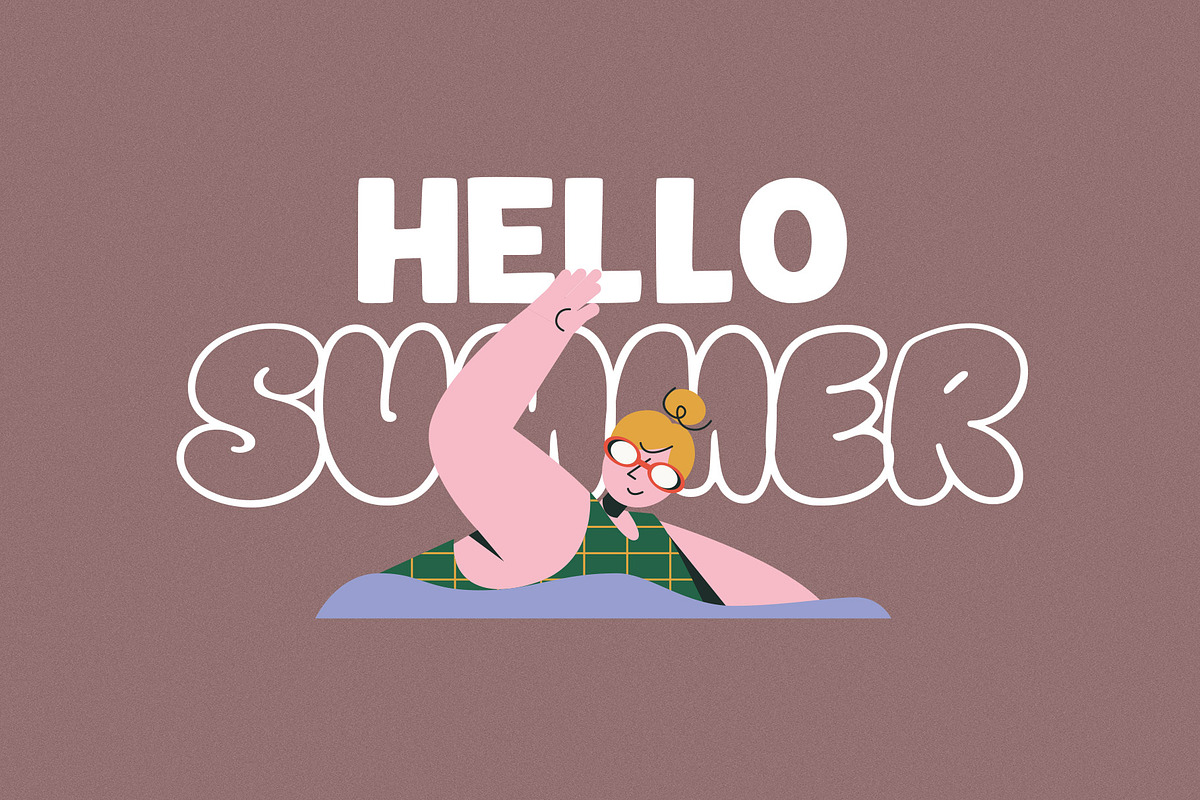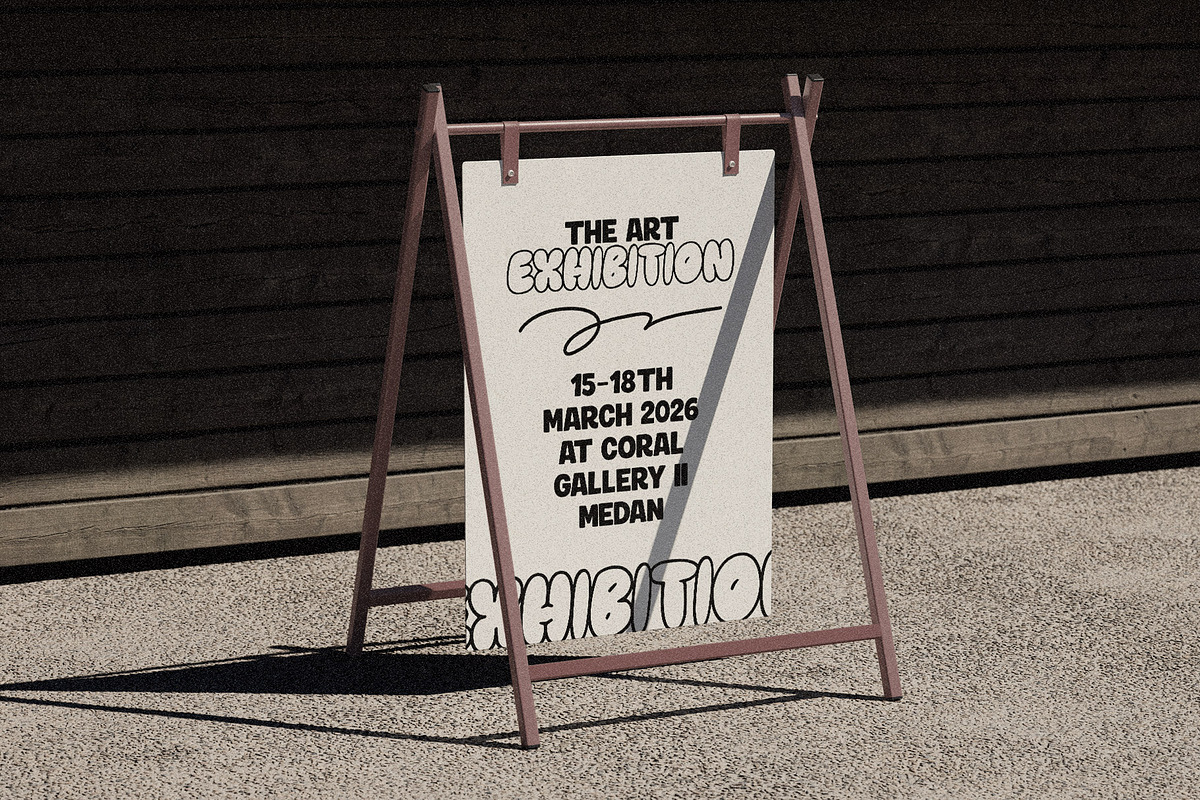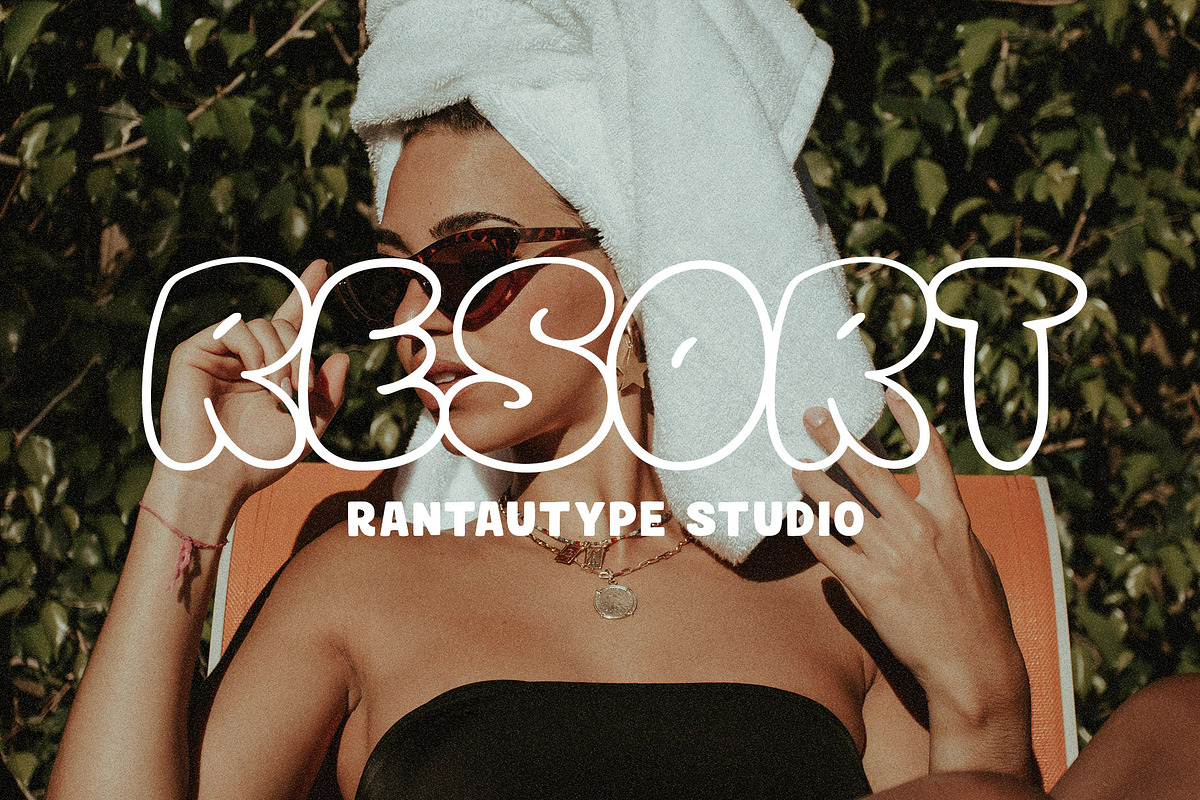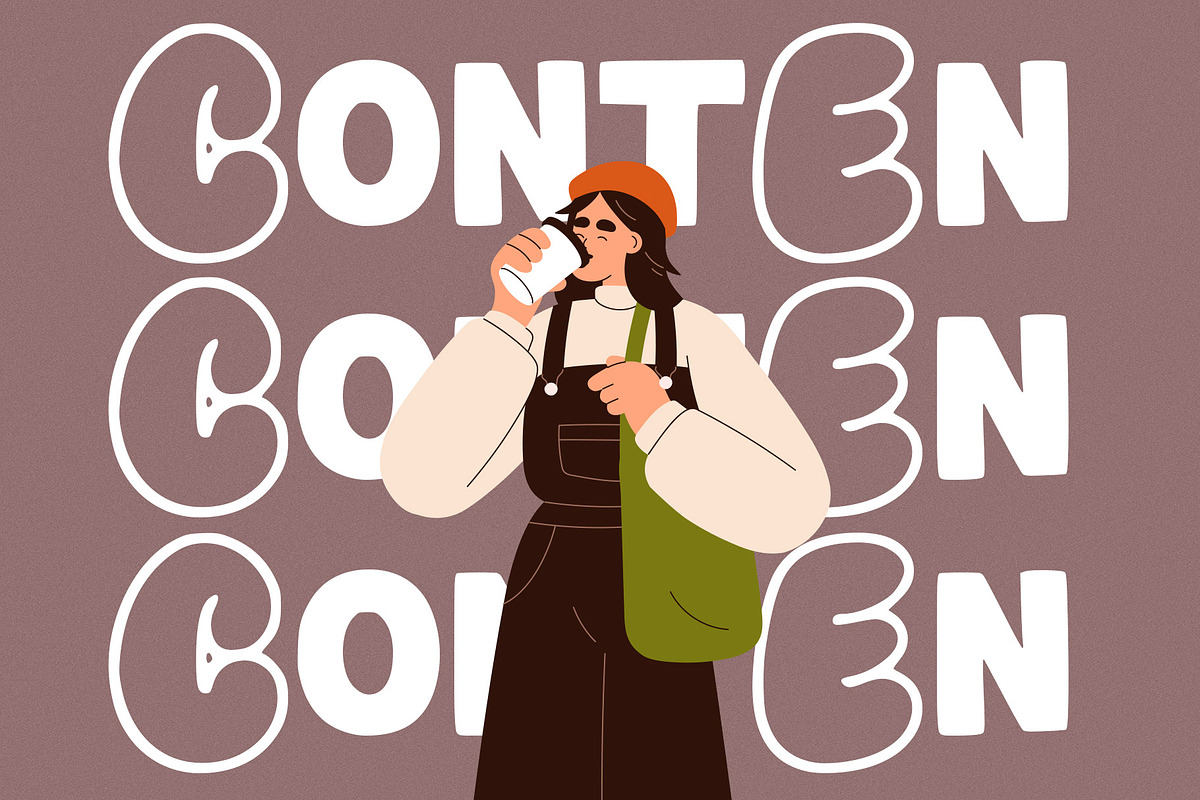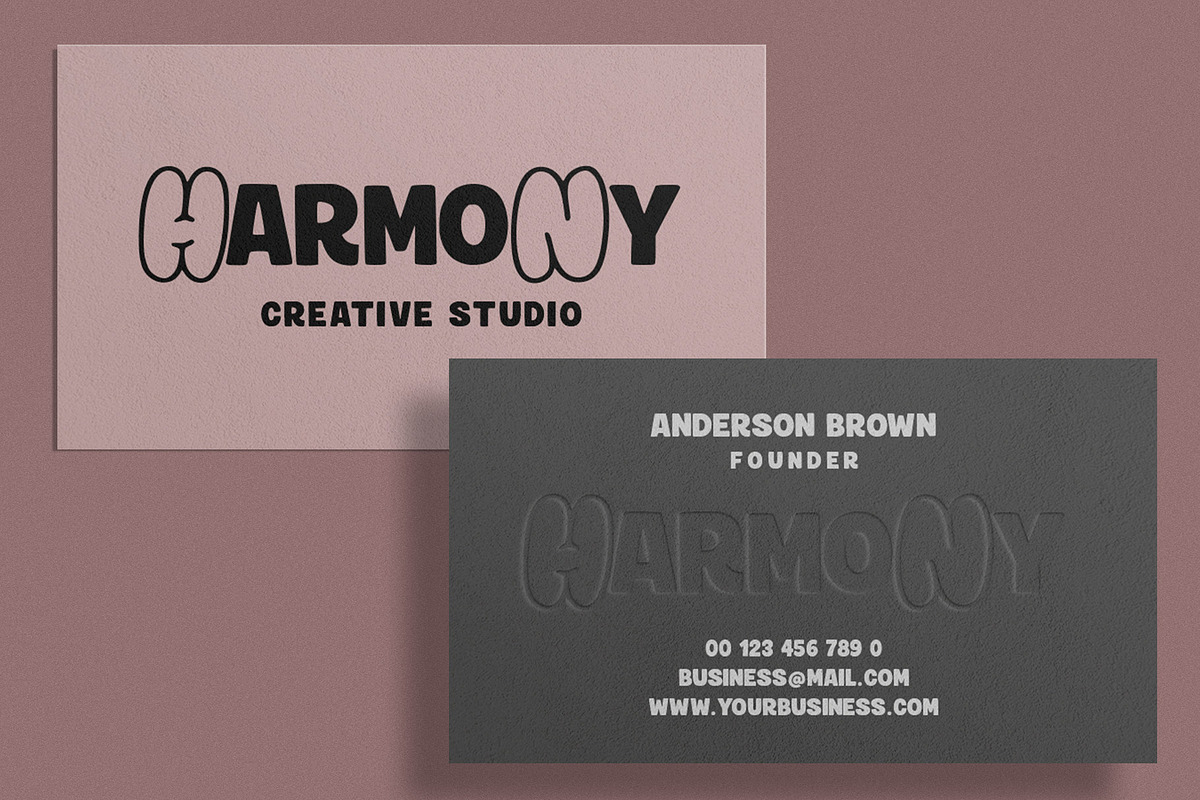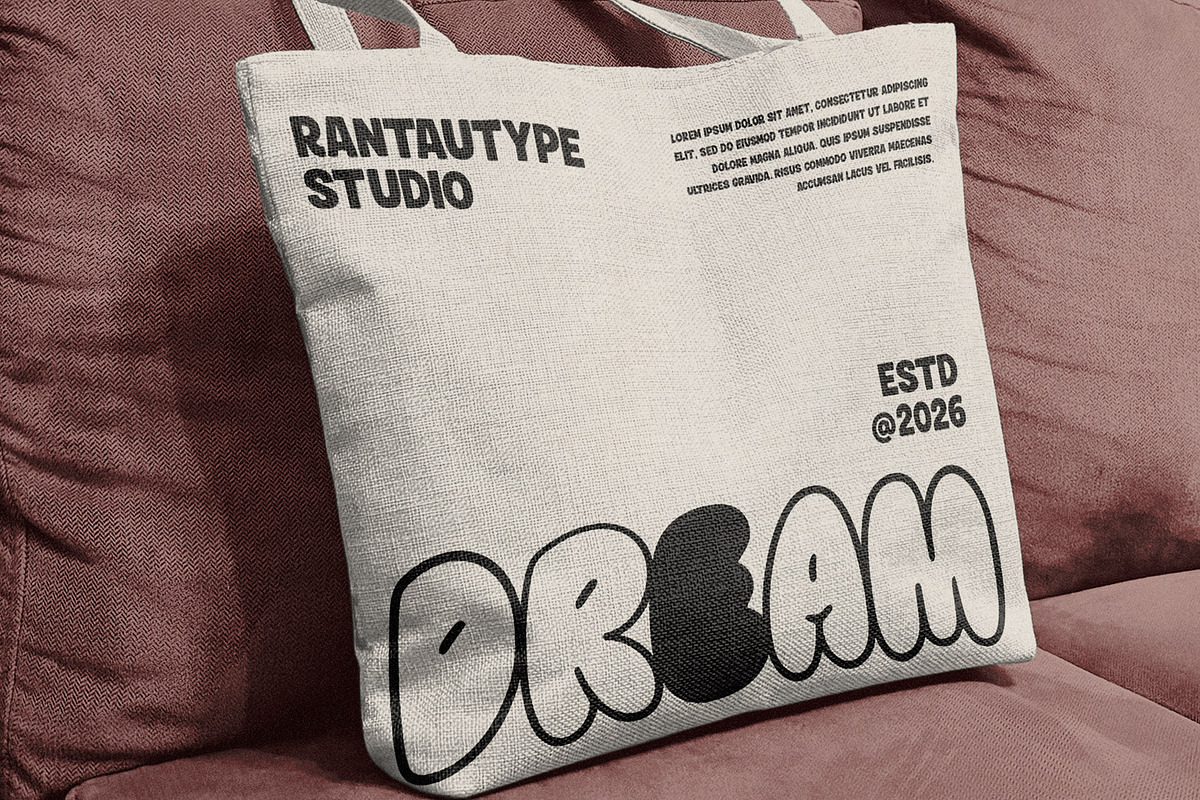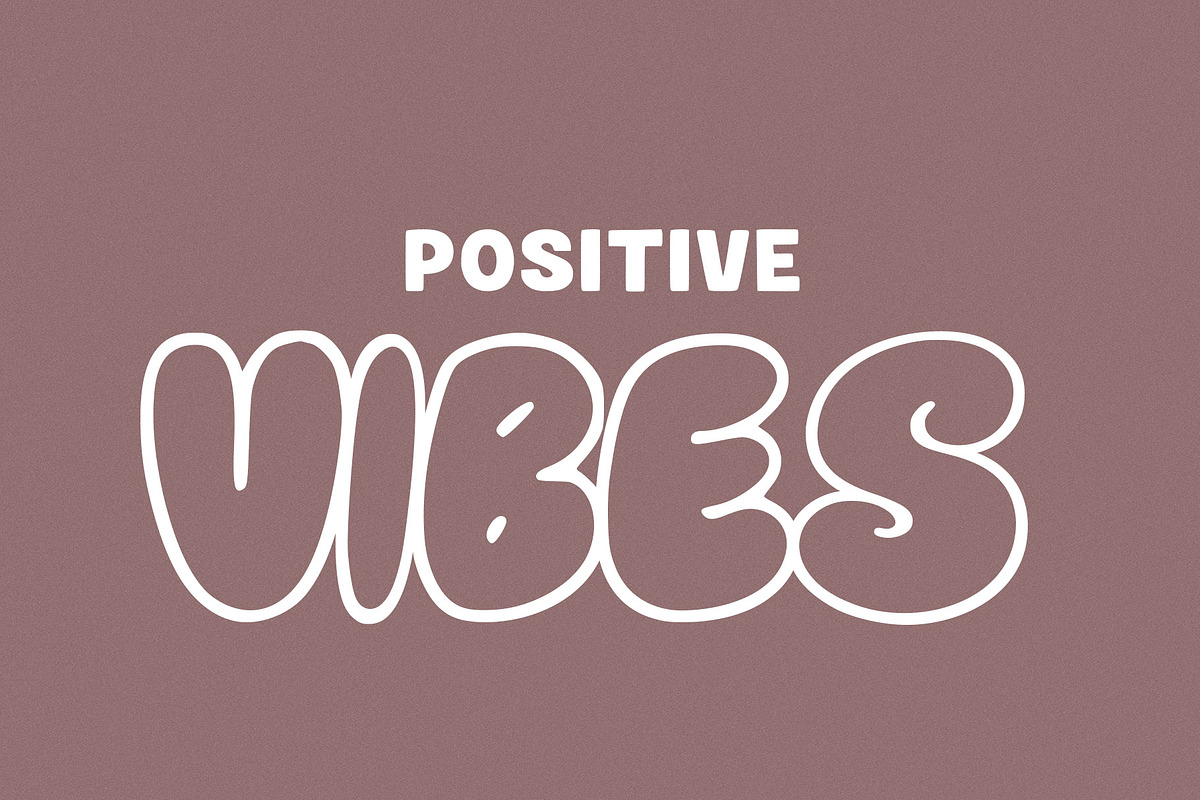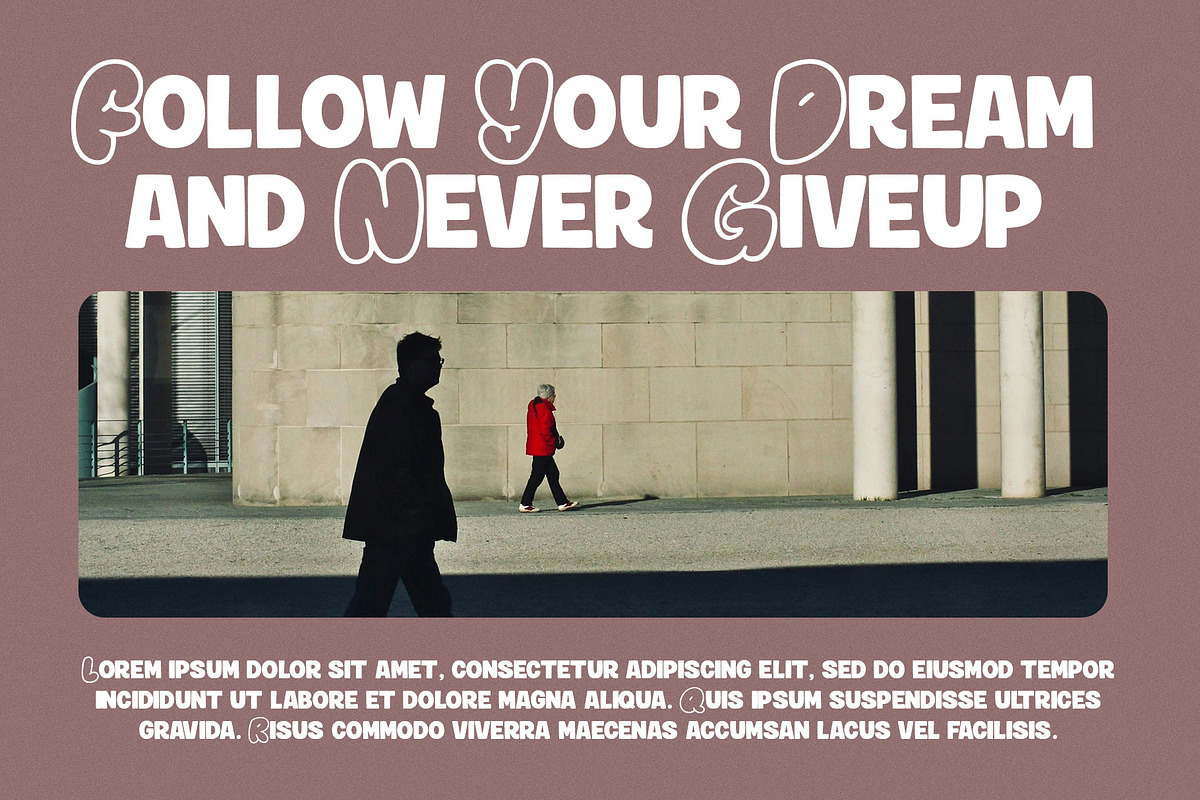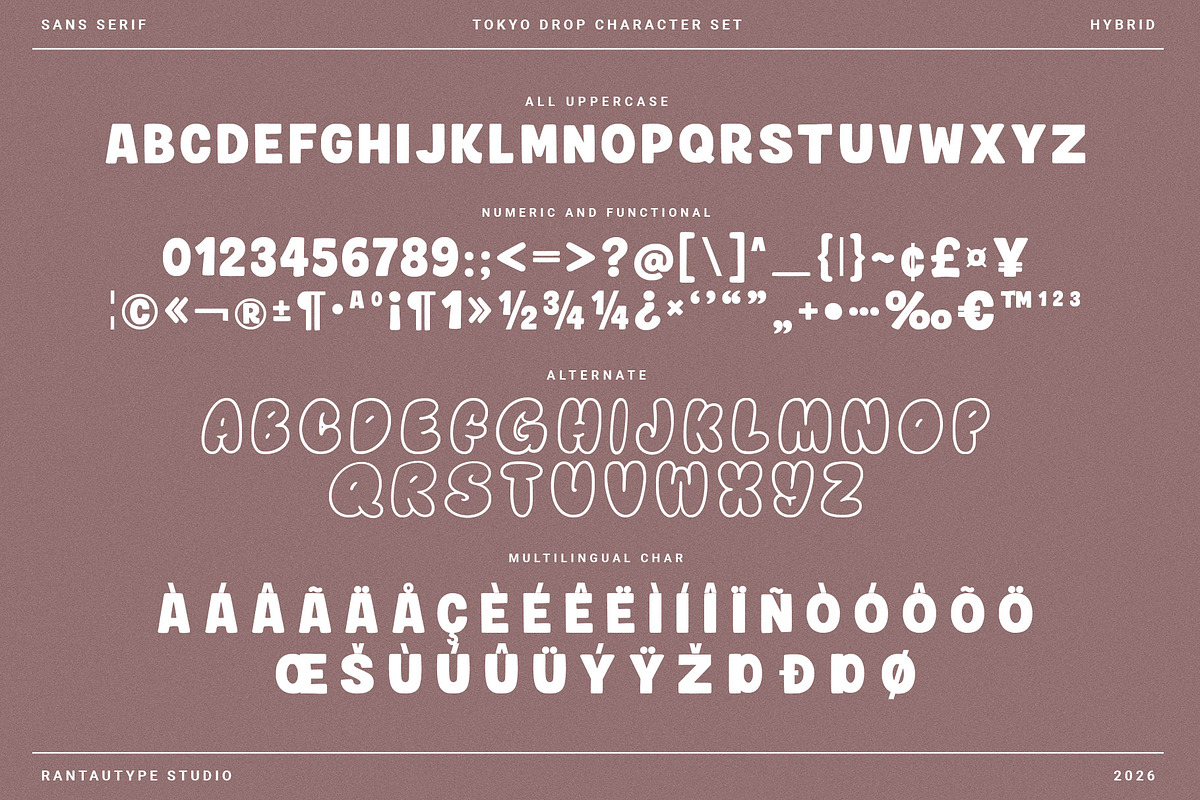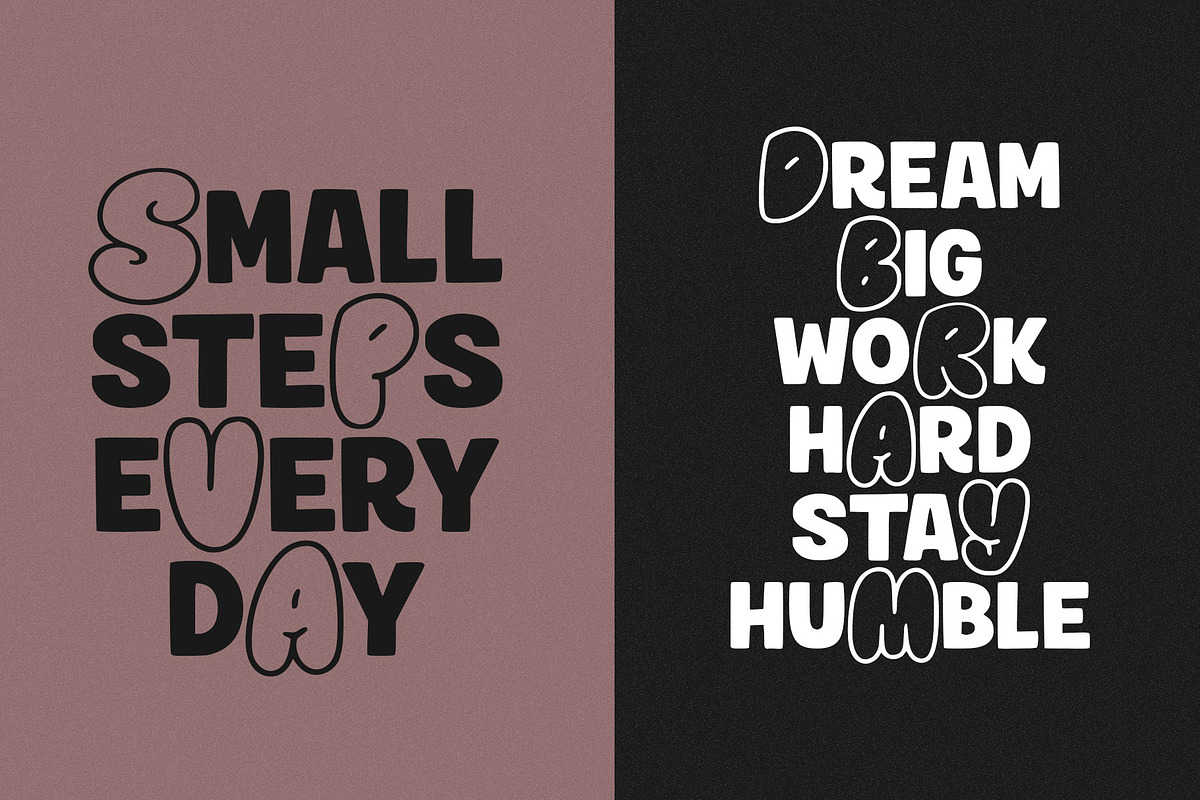
Tokyo Drop Hybrid Sans Serif Font
Tokyo Drop is hybrid font sans with bubble outline style is where modern structure meets playful personality. Designed with clean, geometric foundations, this typeface carries the clarity and versatility of a classic sans serif while introducing a soft, rounded bubble contour that adds charm and visual impact.
Tokyo Drop is a perfectly choice for any creative endeavor, creating, modern, lifestyle design such as logotype, title, cover, branding, invitations, wedding designs, display and magazine, social media posts, advertisements, printed quotes, product packaging, corporate brand, product designs, labels, photography, watermarks, special events and any other project with modern touch.
- Alternate and ligature